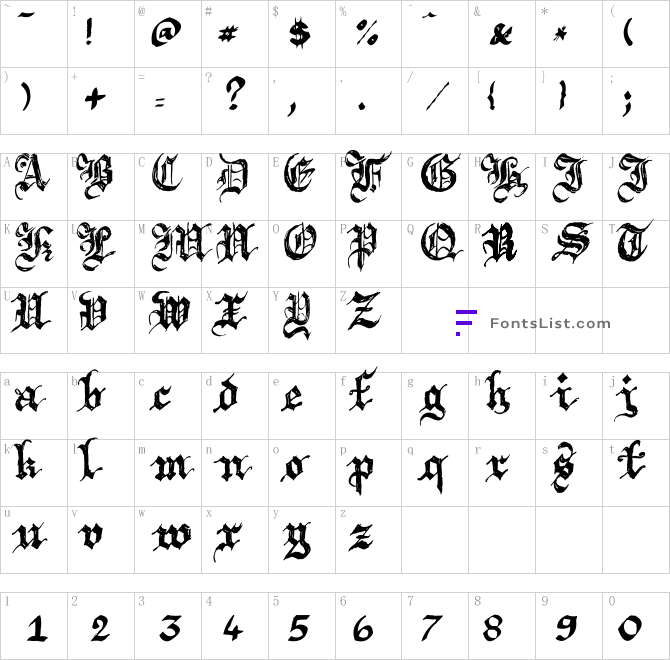
- Font Name:Argor Brujsh Scaqh
Argor-Brujsh-Scaqh.ttf is a very beautiful artistic font, Argor-Brujsh-Scaqh.ttf is widely used in the design and printing of various books and pictures,Argor-Brujsh-Scaqh.ttf has a strong visual impact,Argor-Brujsh-Scaqh.ttf is a commonly used font in newspapers, magazines and books, and is used in posters, e-commerce Poster design, store design, logo design, font design and other fields.Argor-Brujsh-Scaqh.